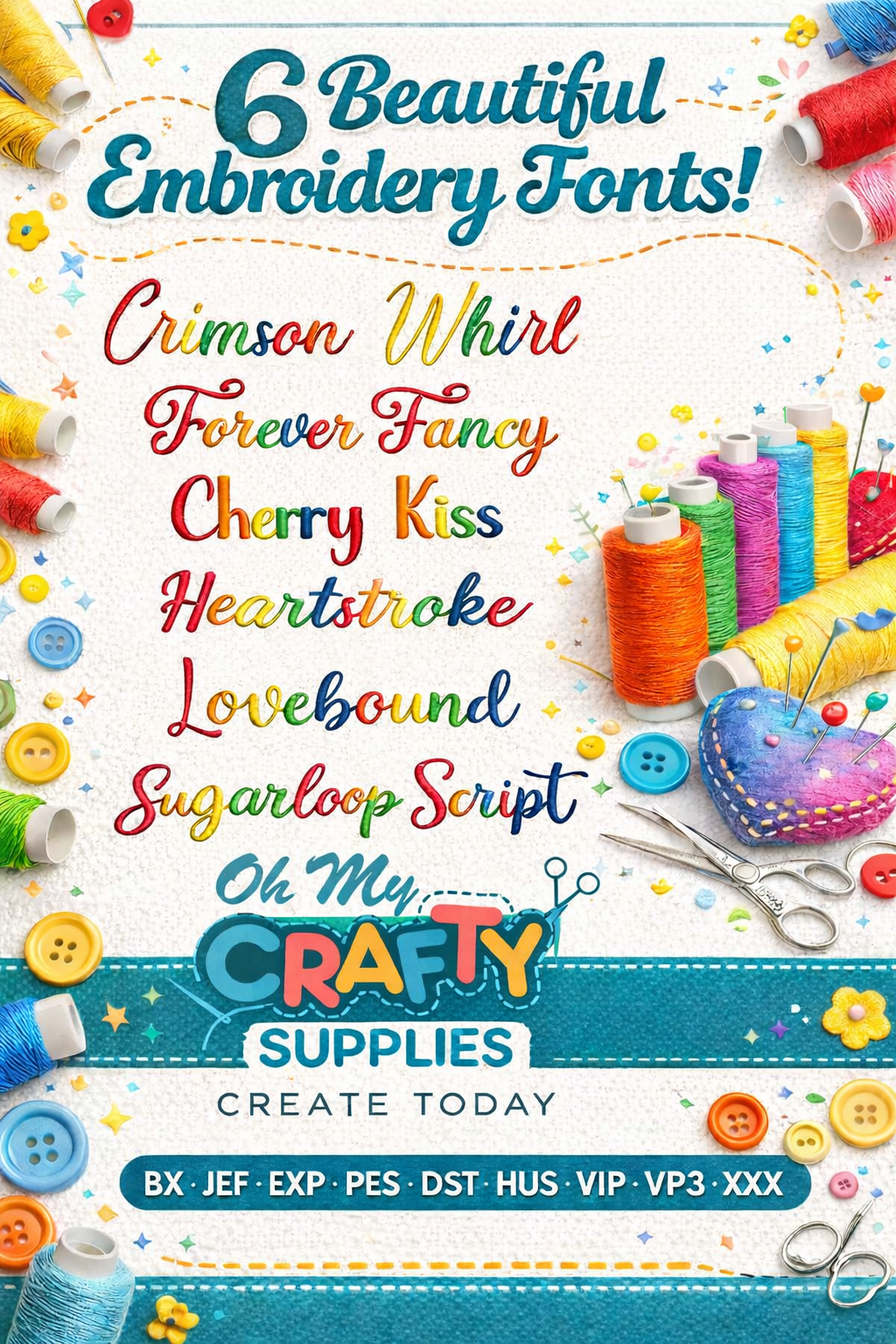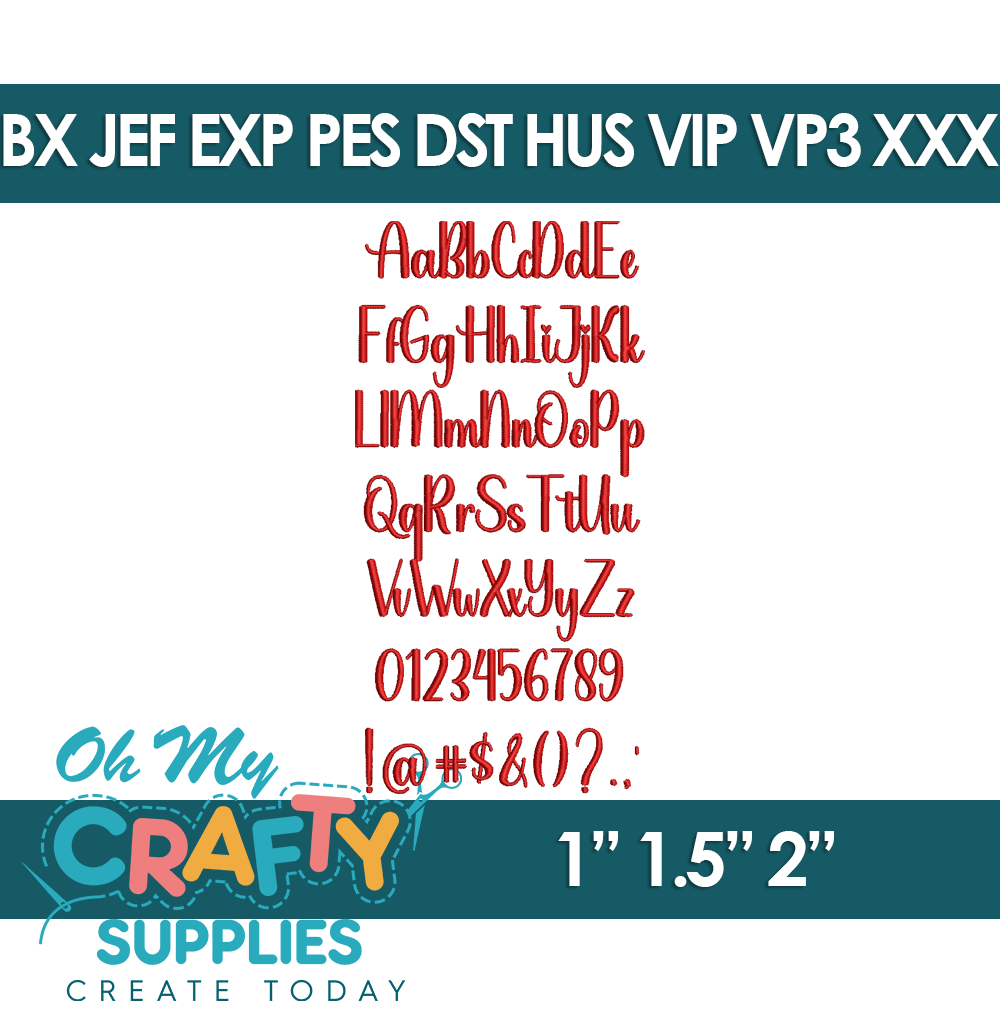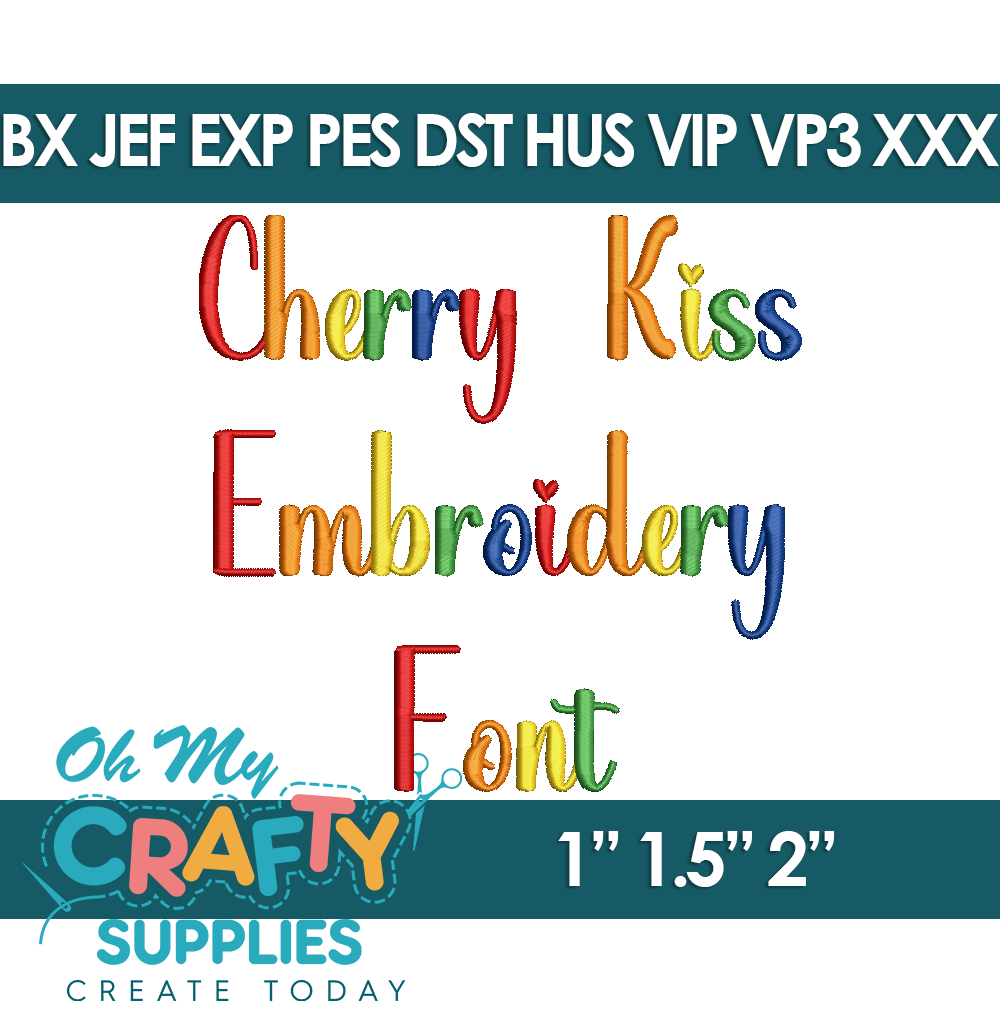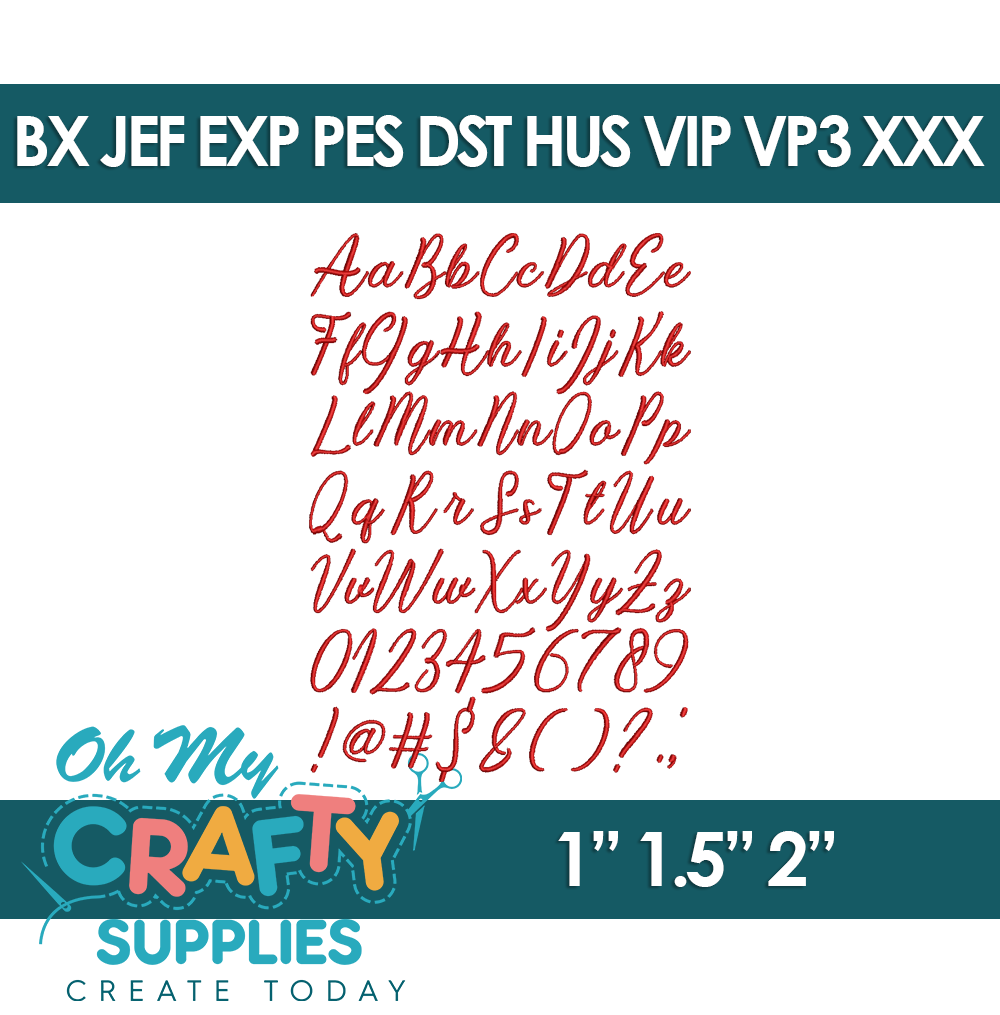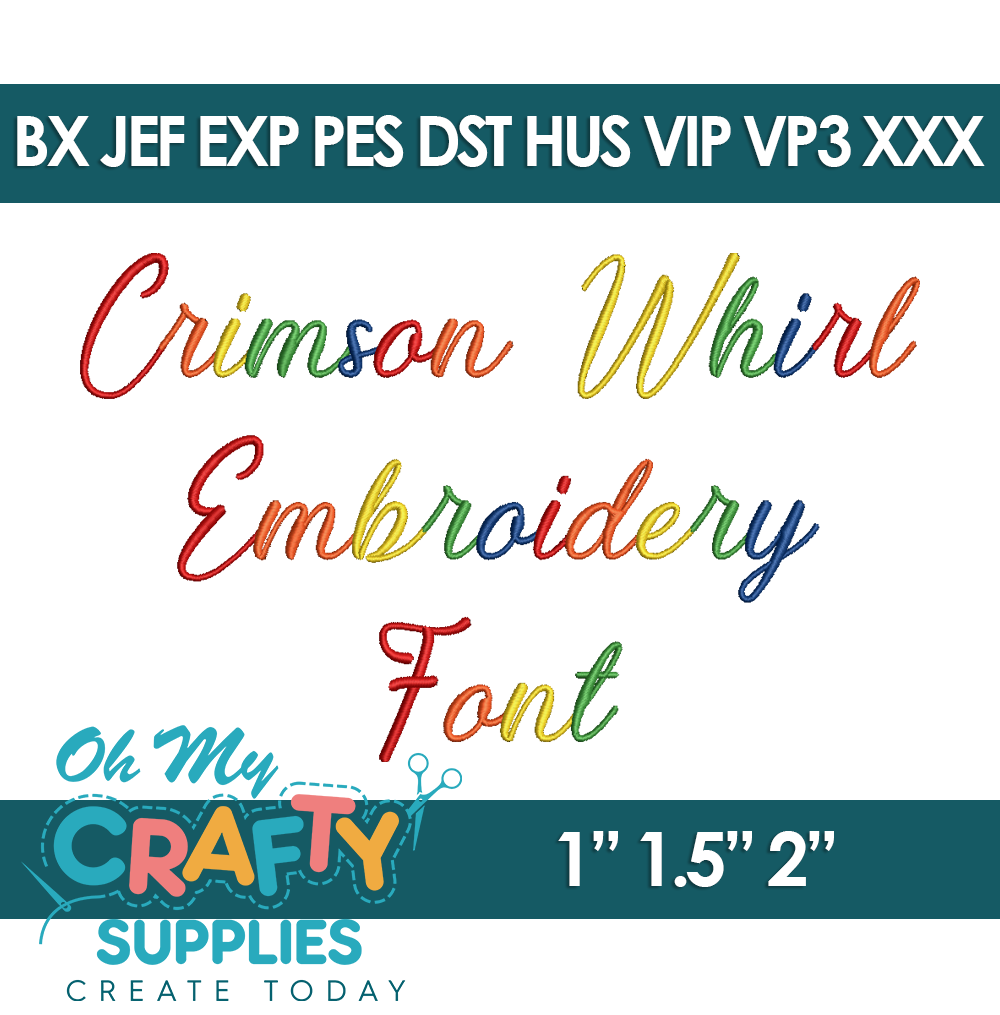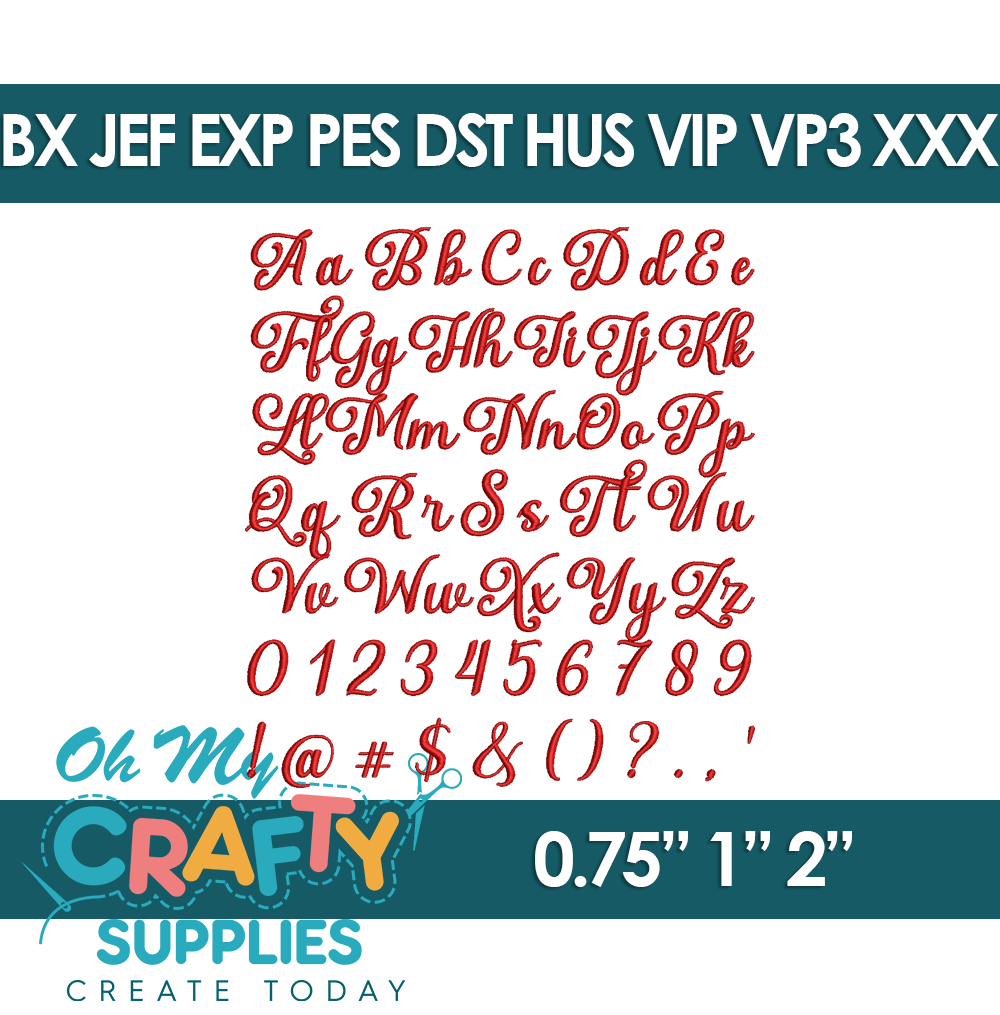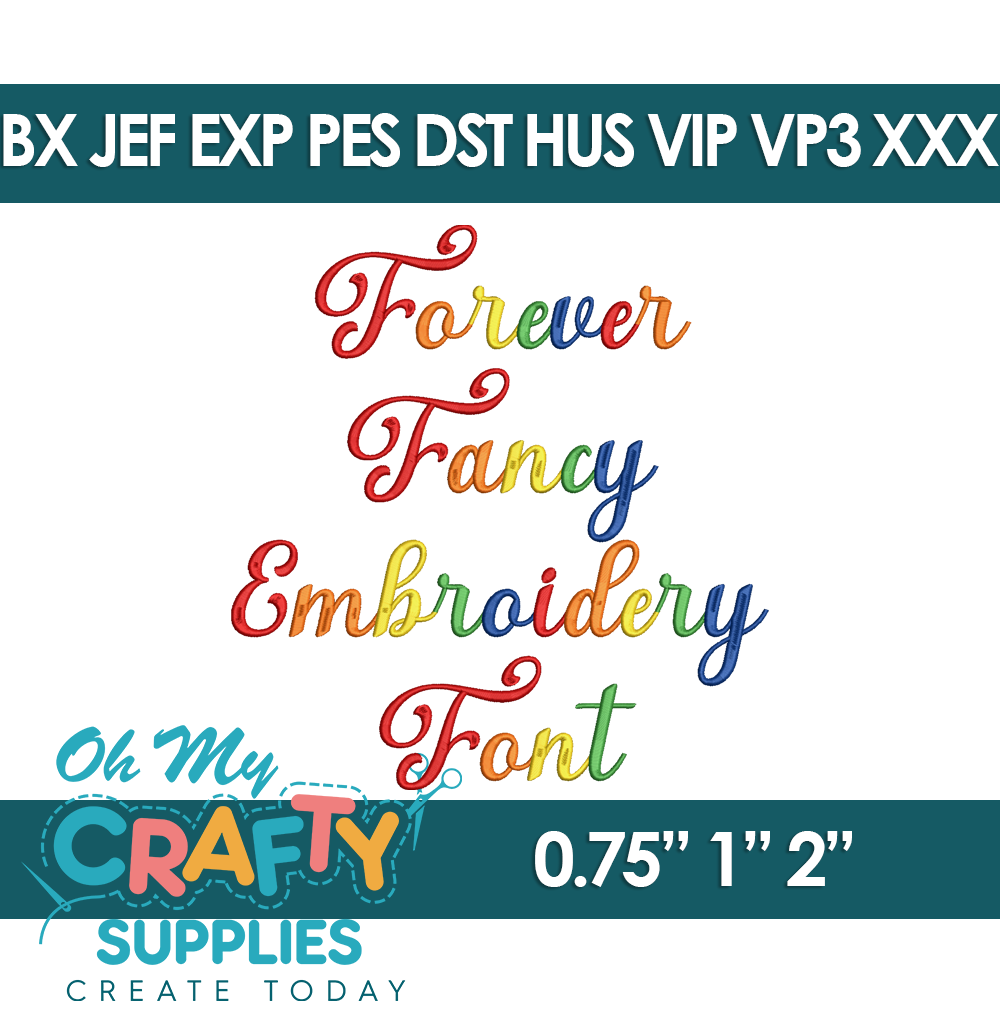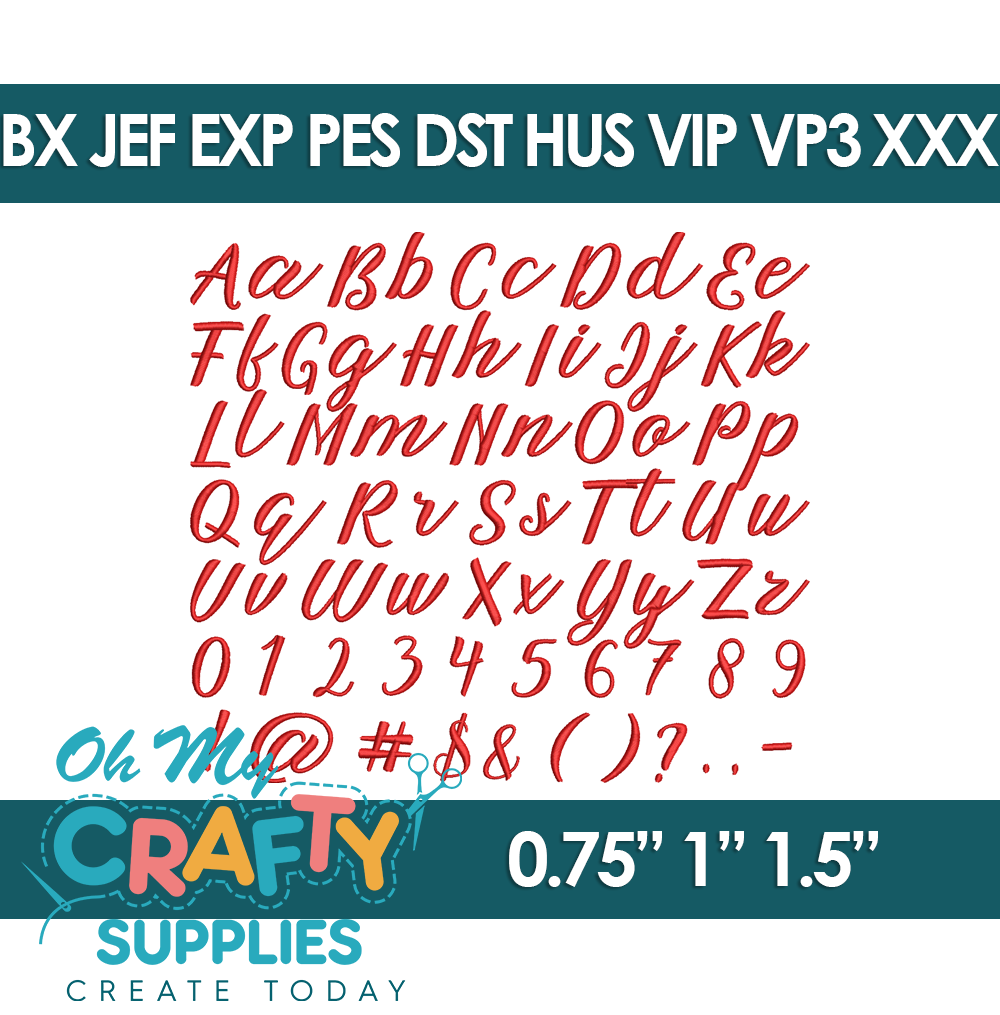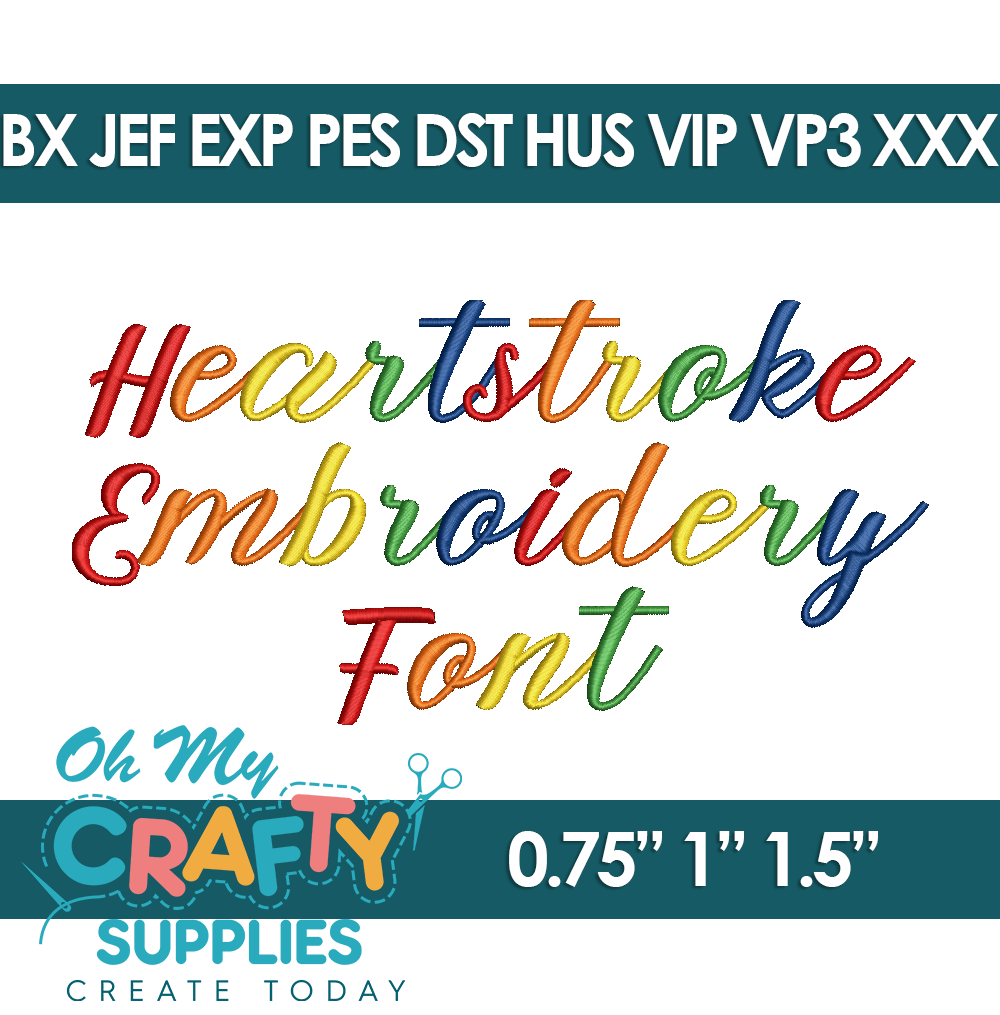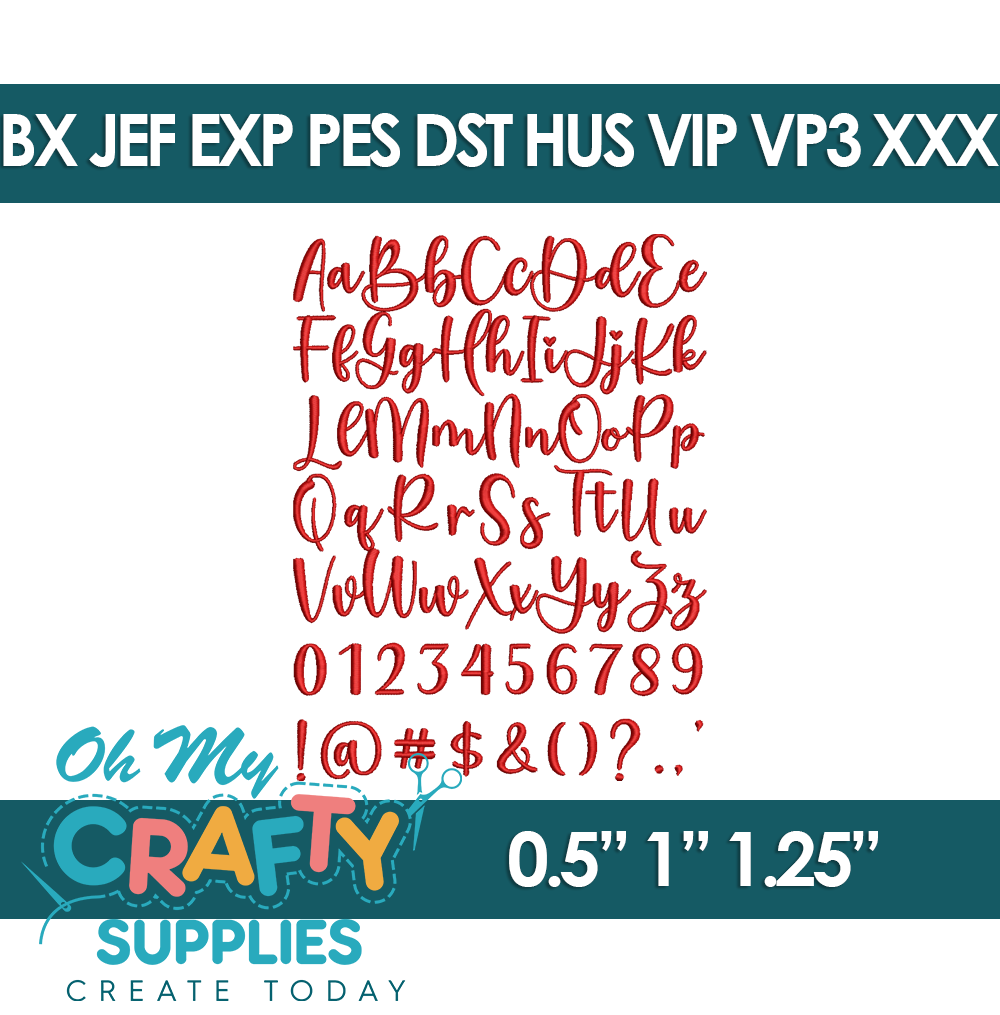
Meet your new go-to embroidery font bundle! This collection includes six unique, stitch-perfect embroidery fonts designed to sew clean, look professional, and work beautifully on everyday projects.
Whether you’re stitching names, gifts, towels, bags, or boutique items, these fonts bring the perfect mix of sweet, playful, and timeless—no over-digitized nonsense here.
✨ Included Fonts
Crimson Whirl
Forever Fancy
Cherry Kiss
Heartstroke
Lovebound
Sugarloop Script
Each font is carefully digitized for smooth stitching and excellent readability, even on smaller projects.